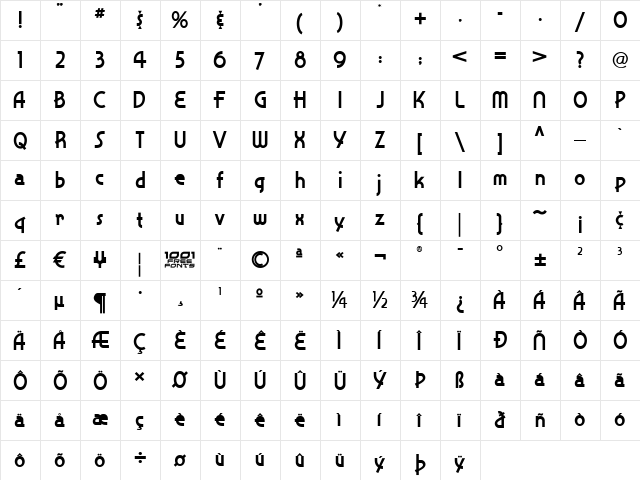
Snappy Service NF Regular
Design Context for Snappy Service NF Typeface
Snappy Service NF offers clean, dependable letterforms without strong stylistic allegiance, making it a practical choice for designers who need flexibility.
Pro Tip: Use Snappy Service NF in both headline and body roles to test its range before committing to a single application.